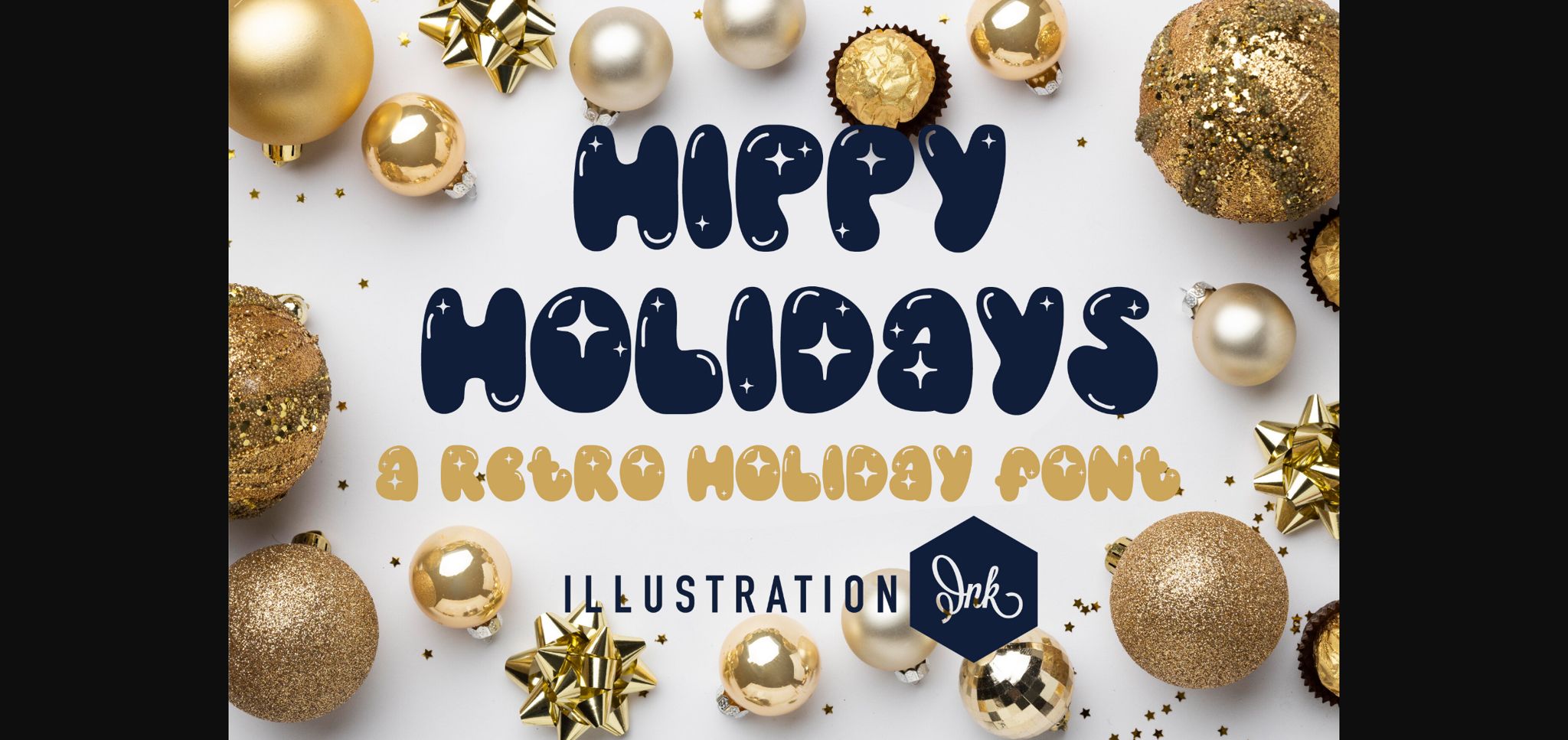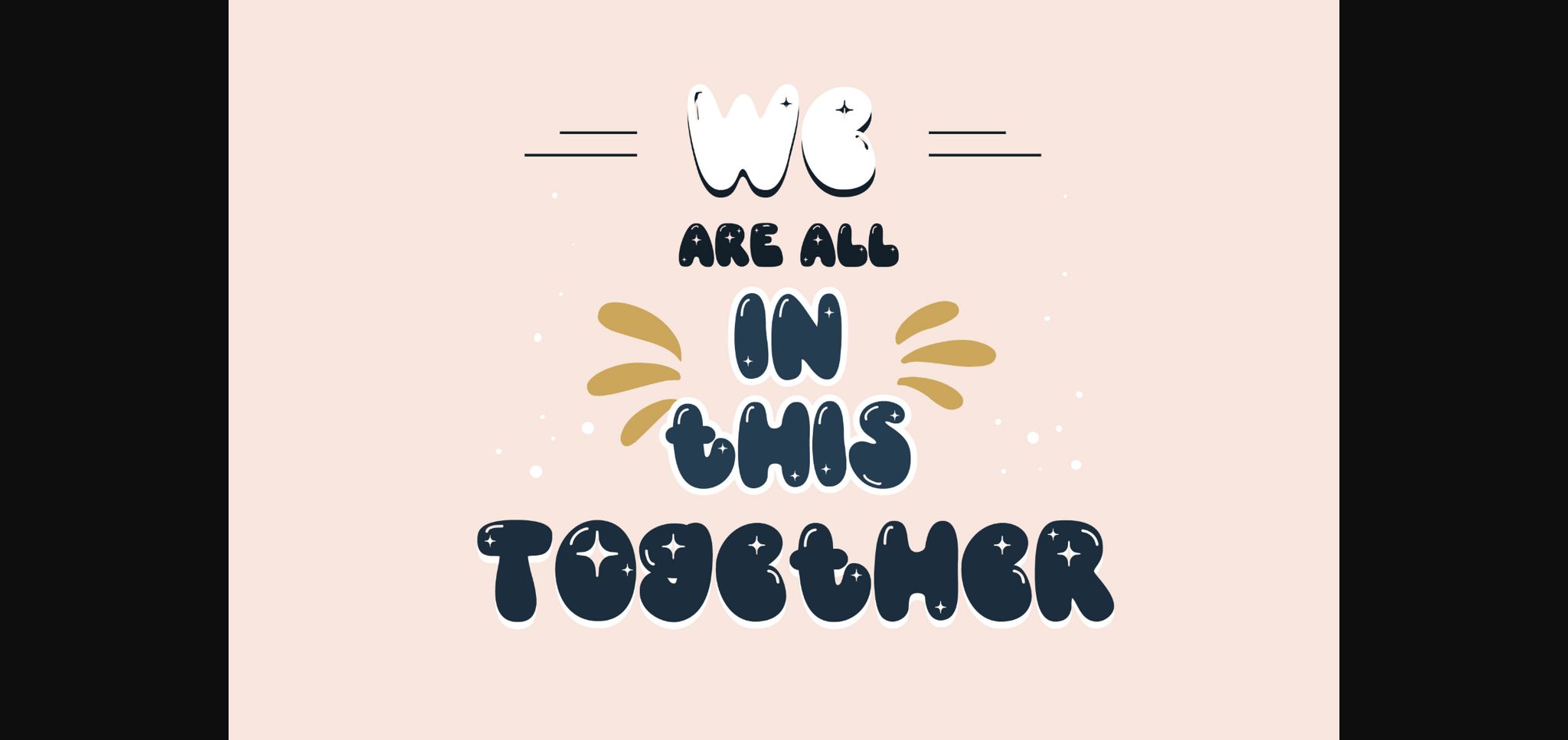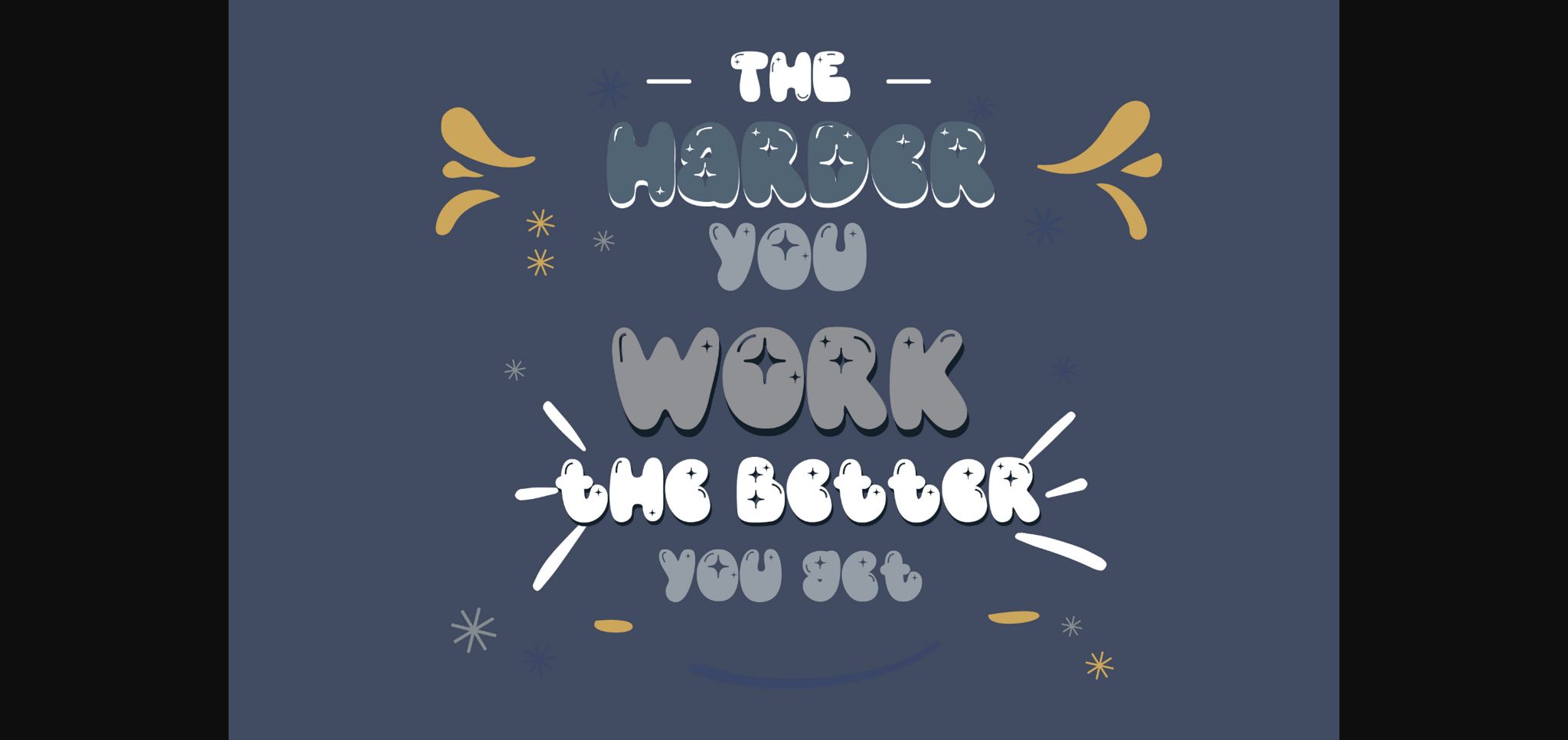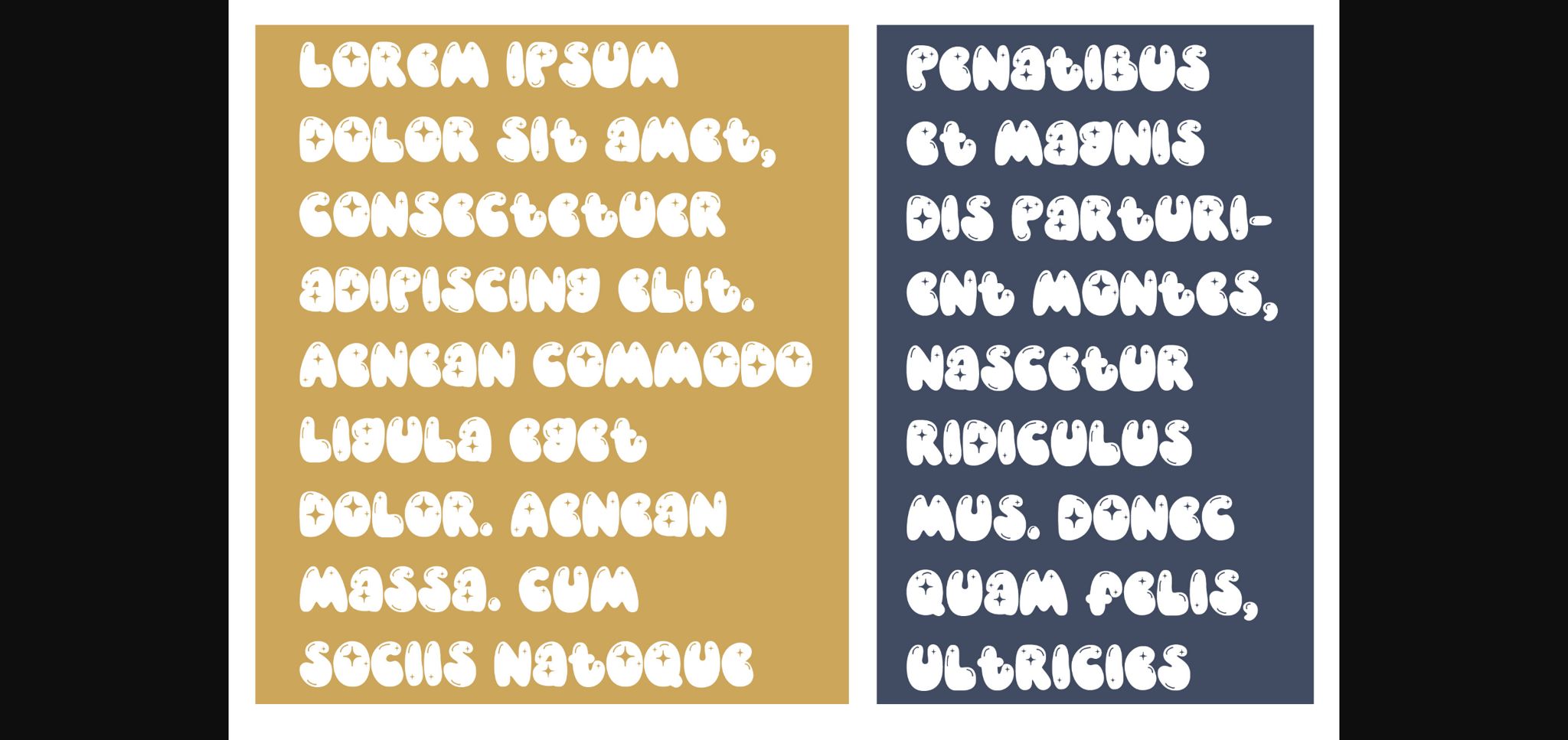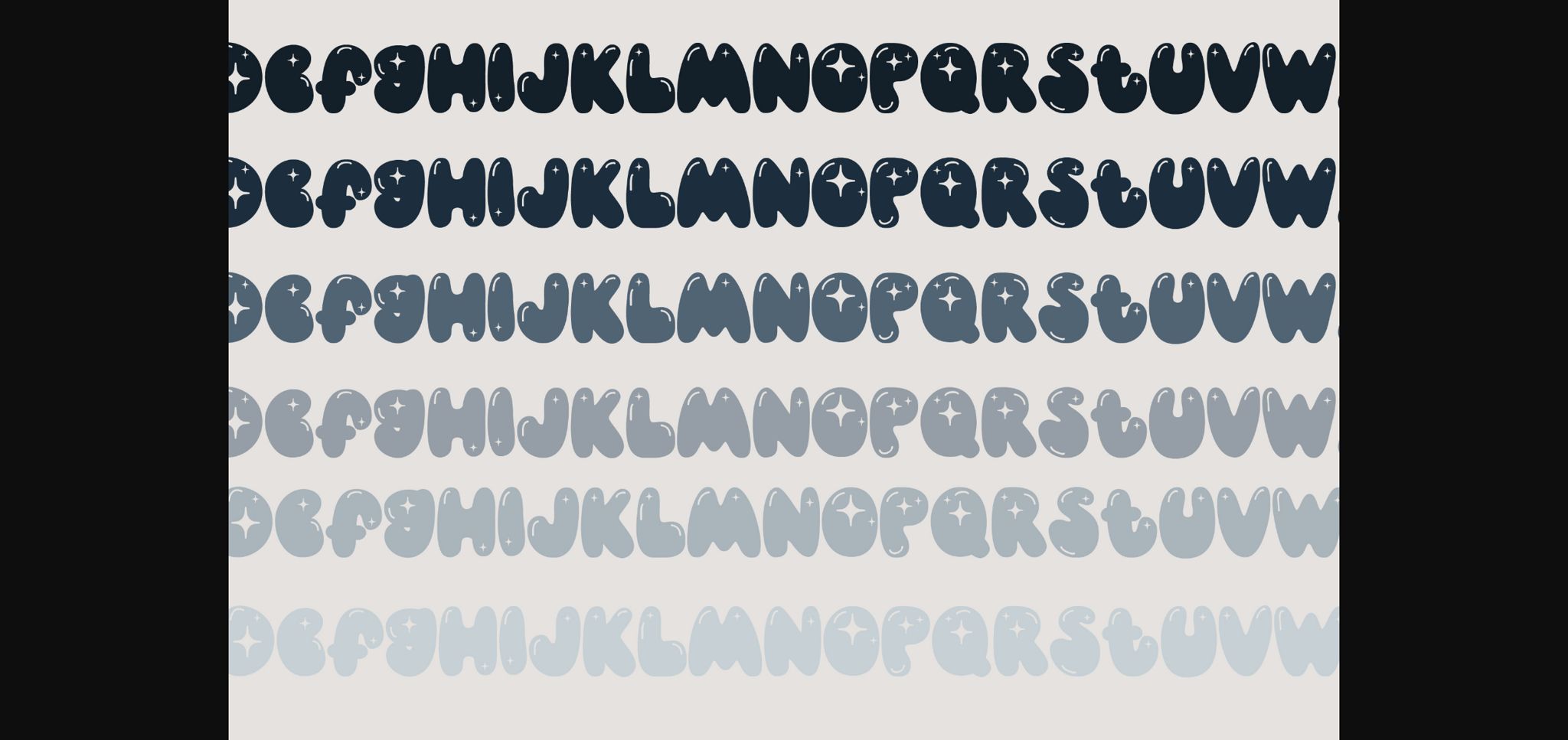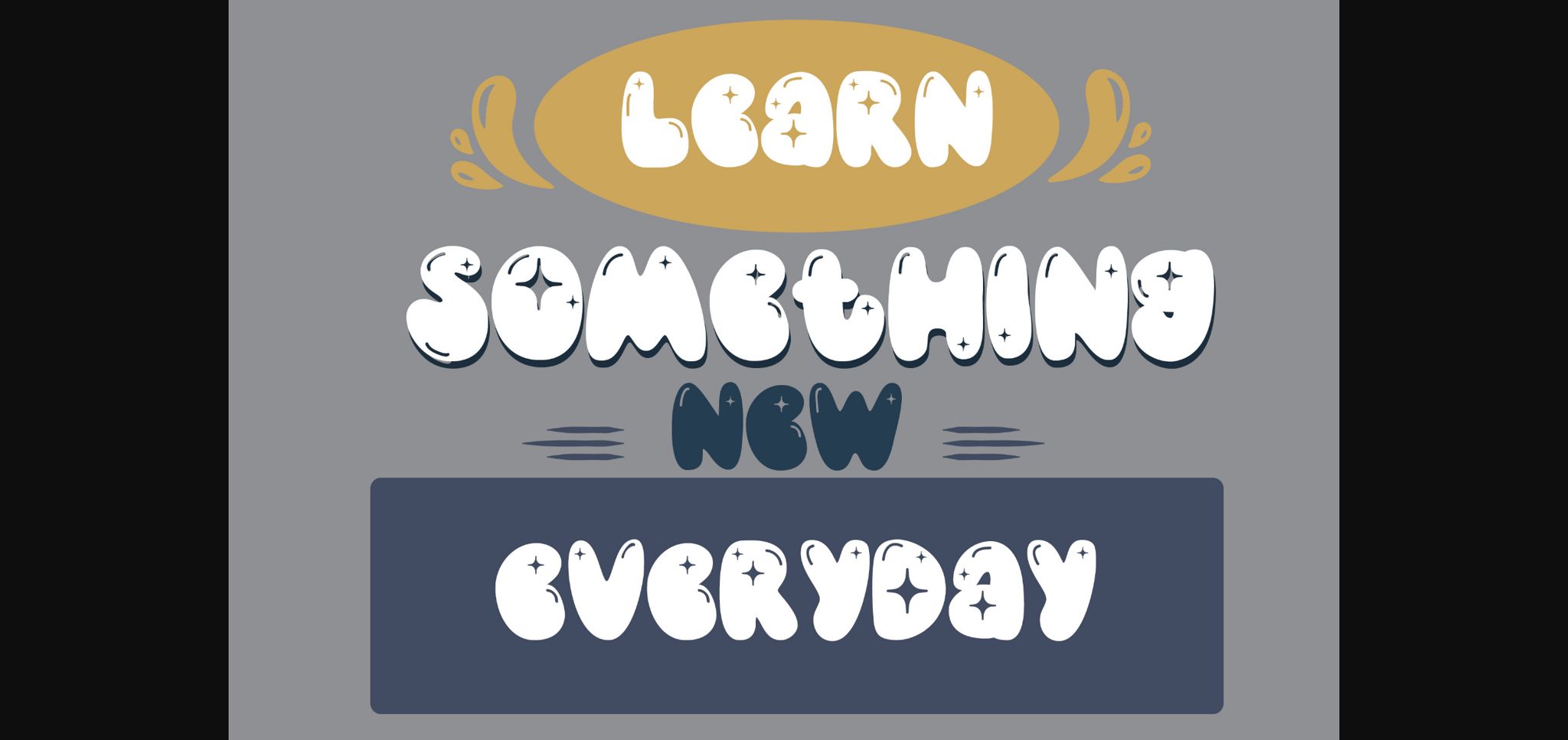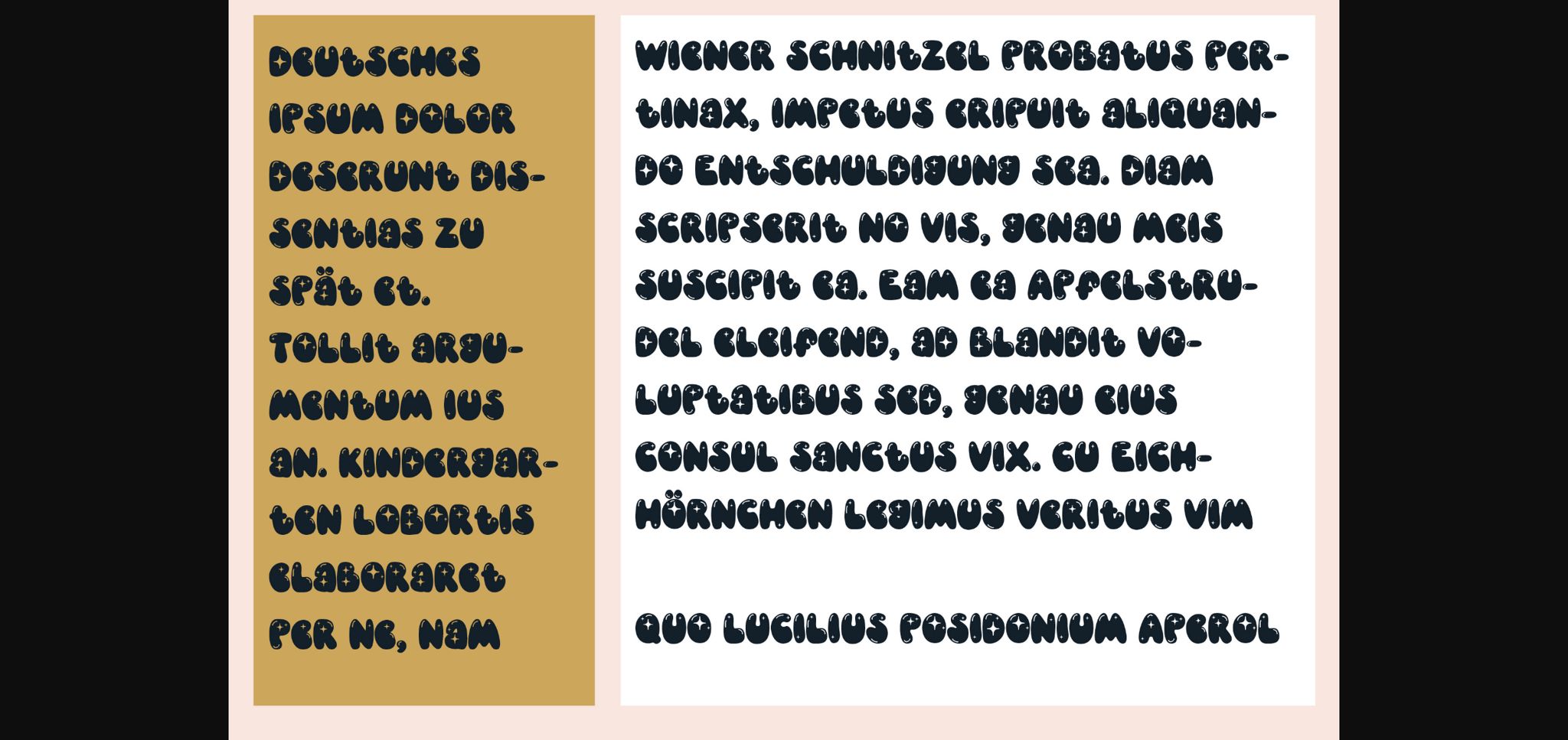
Hippy Holidays Font
About Hippy Holidays Font
This hand-crafted sans serif font features retro style letters with stars and highlights.
A hand-crafted font is a font that is designed to look like it was written by hand. It is often used for invitations, greeting cards, and other items. Handwritten fonts can be either formal or informal, and they can be used for a variety of purposes.
Handwritten fonts can be a great way to add a casual touch to your designs. They can also be used to create a sense of nostalgia or whimsy. However, it is important to choose a handwritten font that is appropriate for the project you are working on. A formal handwritten font may not be appropriate for a casual invitation, while an informal handwritten font may not be appropriate for a corporate document.